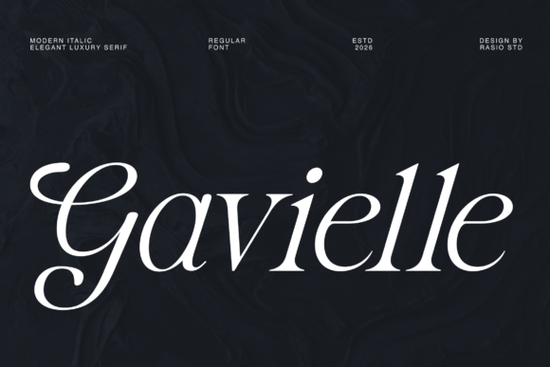
If you're looking for a serif font that brings quiet sophistication to your projects, Gavielle Font is worth exploring. It’s not just another italic serif it’s a design choice that feels intentional, refined, and effortlessly elegant. Whether you're crafting wedding invitations, designing a luxury product label, or working on editorial layouts, this font adds a touch of high-end charm without overwhelming the composition.
What makes Gavielle Font stand out?
Unlike many fonts that feel overly dramatic or stiff, Gavielle balances fluidity with clarity. Its delicate curves and subtle swashes give it a poetic rhythm, making it ideal for designs where elegance matters. The letterforms are carefully spaced what designers call “premium visual tracking” so each character sits comfortably, even at smaller sizes. This balance helps maintain readability while still feeling luxurious.
You’ll notice how well it works with negative space. Instead of crowding the layout, Gavielle lets the background breathe perfect for textured papers, soft gradients, or minimalist compositions. It doesn’t fight for attention; it simply belongs.
Where can you use Gavielle Font in real projects?
- Wedding invitations: Pair it with floral illustrations or soft watercolor textures for a timeless, upscale look.
- Luxury packaging: Use it on artisanal perfume bottles, jewelry boxes, or bath products to signal premium quality.
- Editorial design: Great for magazine headlines, feature titles, or section dividers in lifestyle or fashion publications.
- Brand logos: Ideal for boutique hotels, spas, or small businesses aiming for a refined, personal touch.
It also works beautifully when layered over images like a model in a flowing dress or a close-up of a candlelit table. The font enhances the mood without distracting from the photo.
How does it compare to other elegant serif fonts?
If you’ve explored similar styles, you might have come across fonts that feel too heavy or too ornate. Gavielle strikes a middle ground: it has personality but remains restrained. You won’t find excessive flourishes or tight spacing that make reading difficult. Instead, it’s thoughtful and consistent qualities that matter in professional design work.
For those who love the style of classic Italian scripts but need something more modern and practical, Gavielle offers a bridge between tradition and contemporary taste. It’s not flashy, but it’s memorable.
Why designers choose Gavielle for their work
It also supports multiple languages, so if you're creating multilingual content, you don’t have to worry about missing characters. That’s a practical plus for global brands or creatives working with diverse audiences.
Whether you're a seasoned designer or just starting out, adding a font like Gavielle to your toolkit gives you a reliable option for any project that calls for grace and refinement.